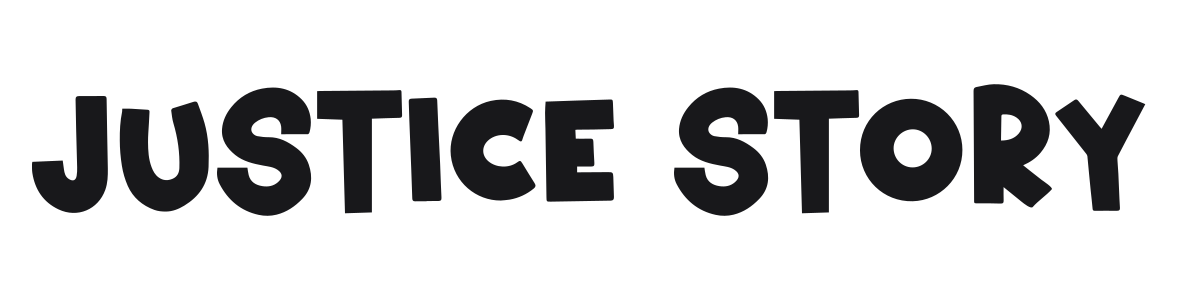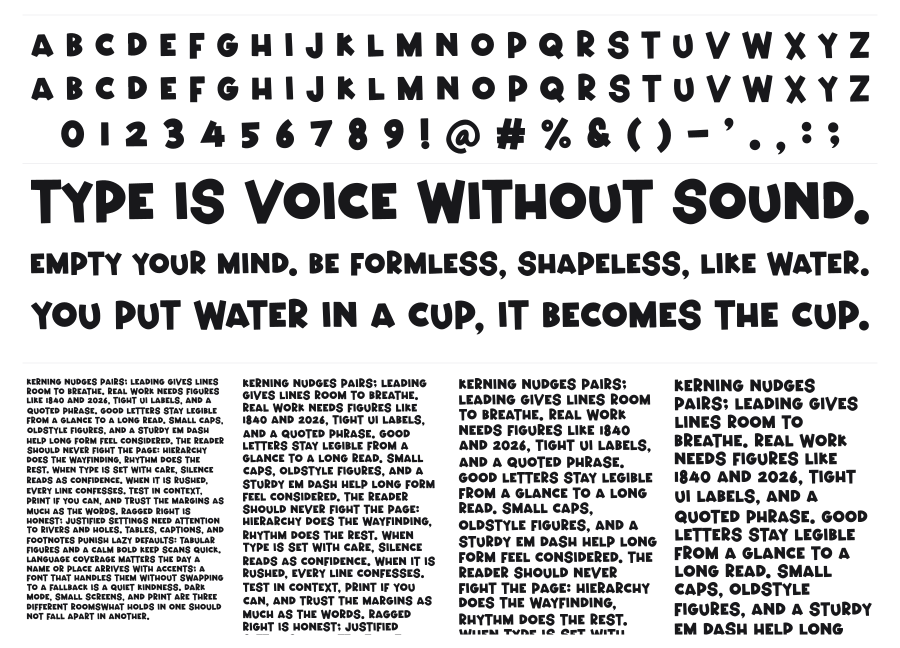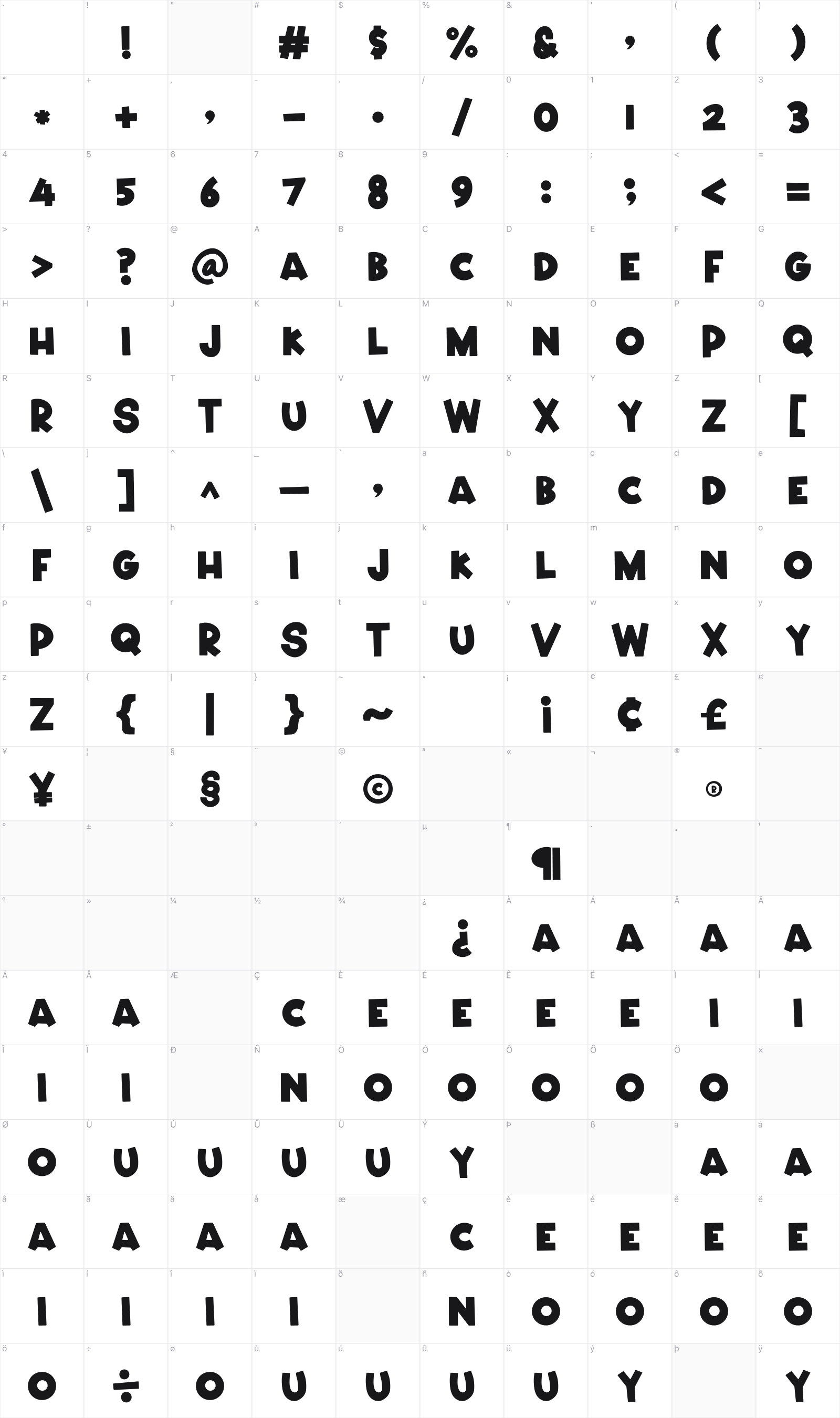
Justice Story
Justice Story is a bold, hand-drawn display font with a strong comic book personality. Its thick, chunky characters have slightly irregular outlines and rounded terminals that give it a lively, informal energy. Good for children's media, entertainment branding, game titles, and anywhere a headline needs to feel fun rather than formal.